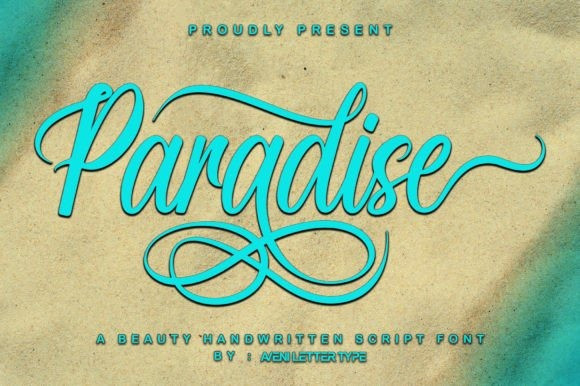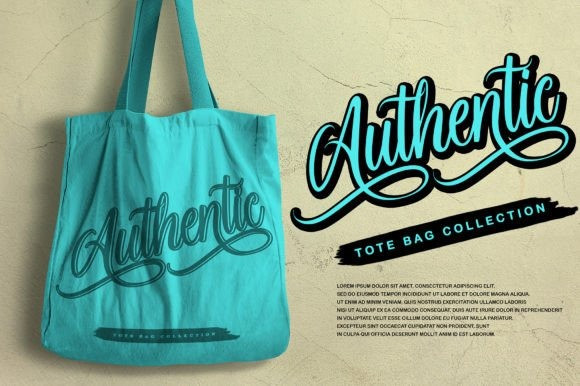
Paradise Font
Paradise is a stunning, well-defined and balanced script font. It is perfect for any branding project such as logos, t-shirt printing, creative products, and more. This font is PUA encoded which means you can access all of the glyphs and swashes with ease.